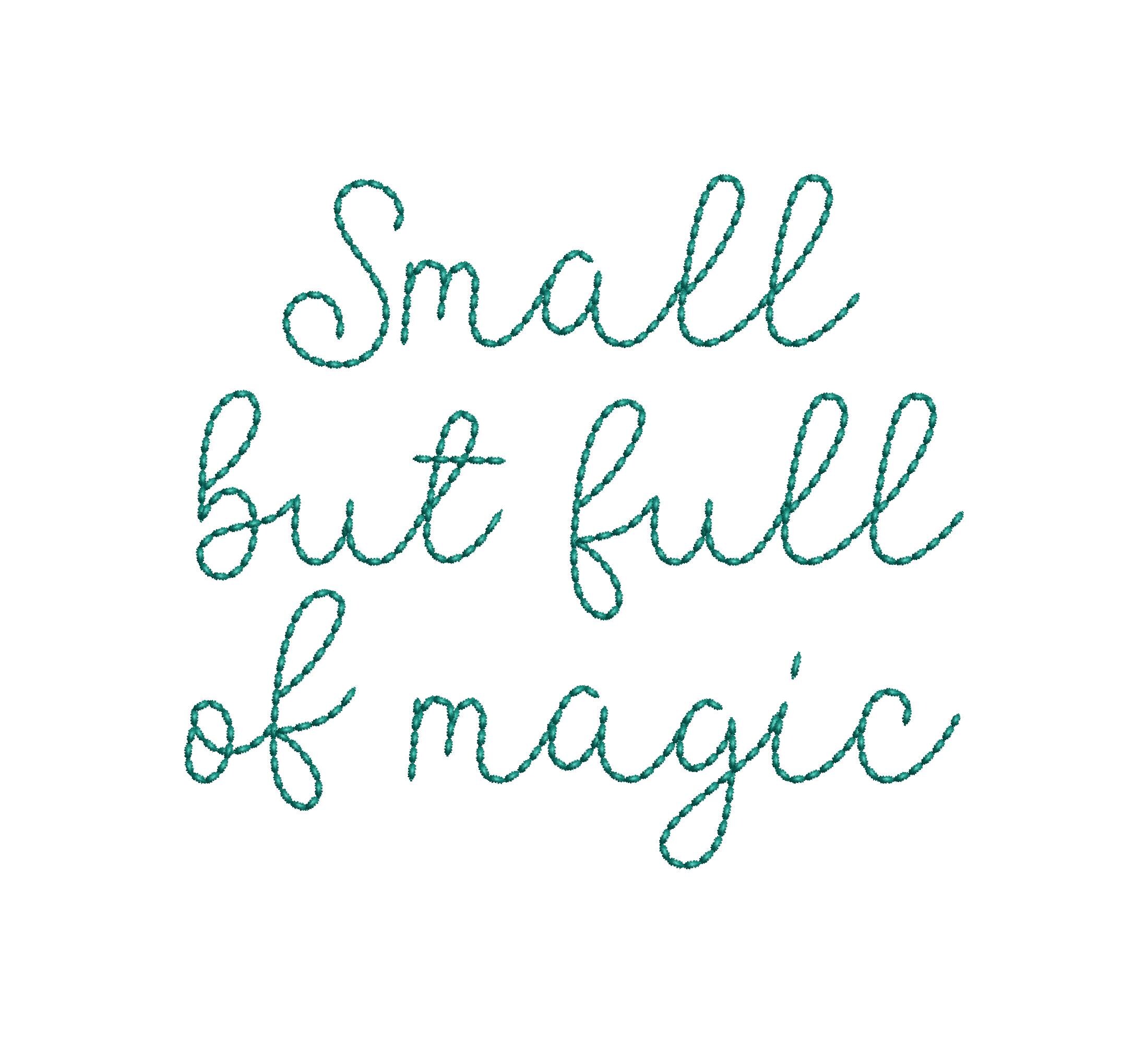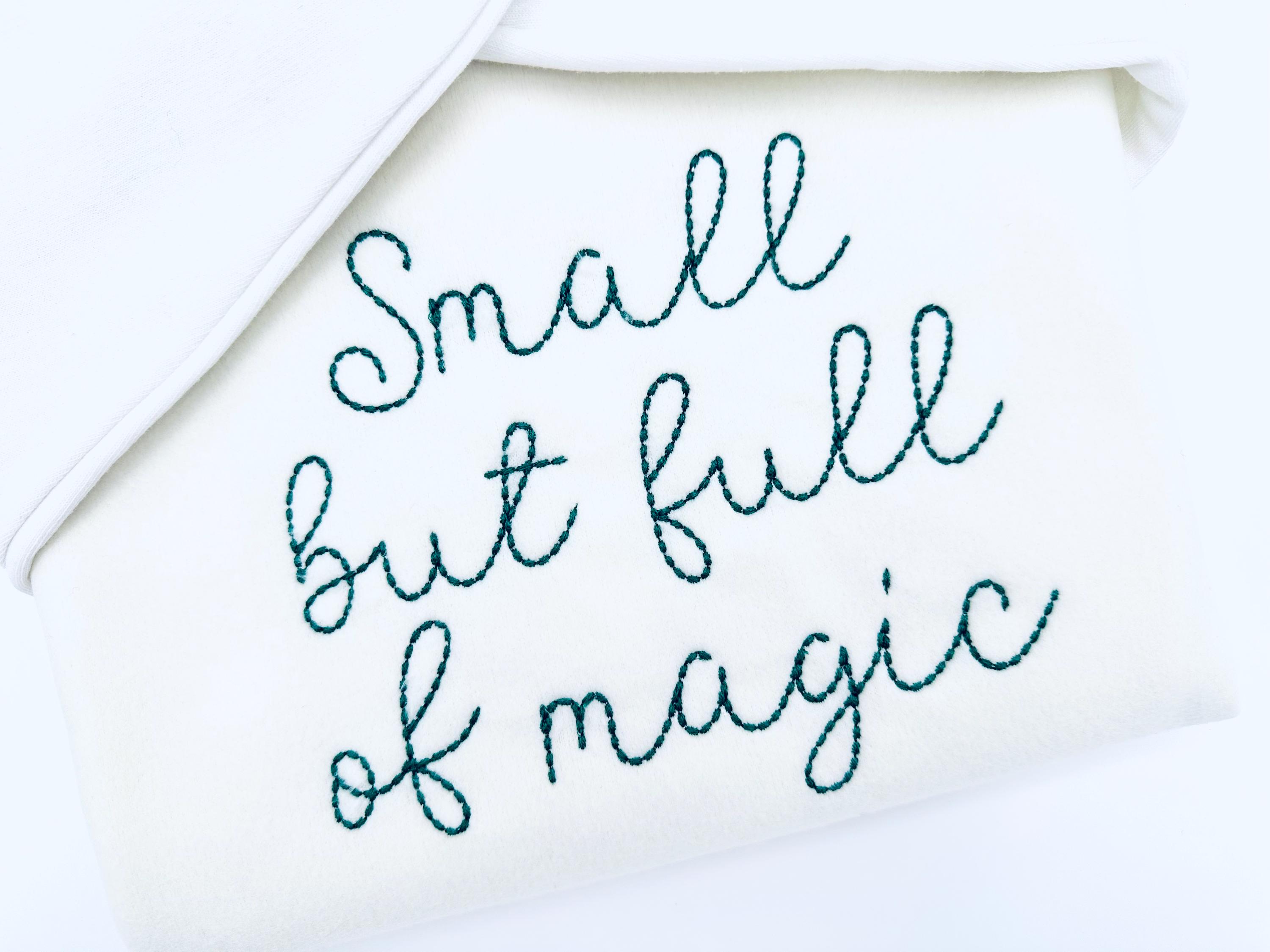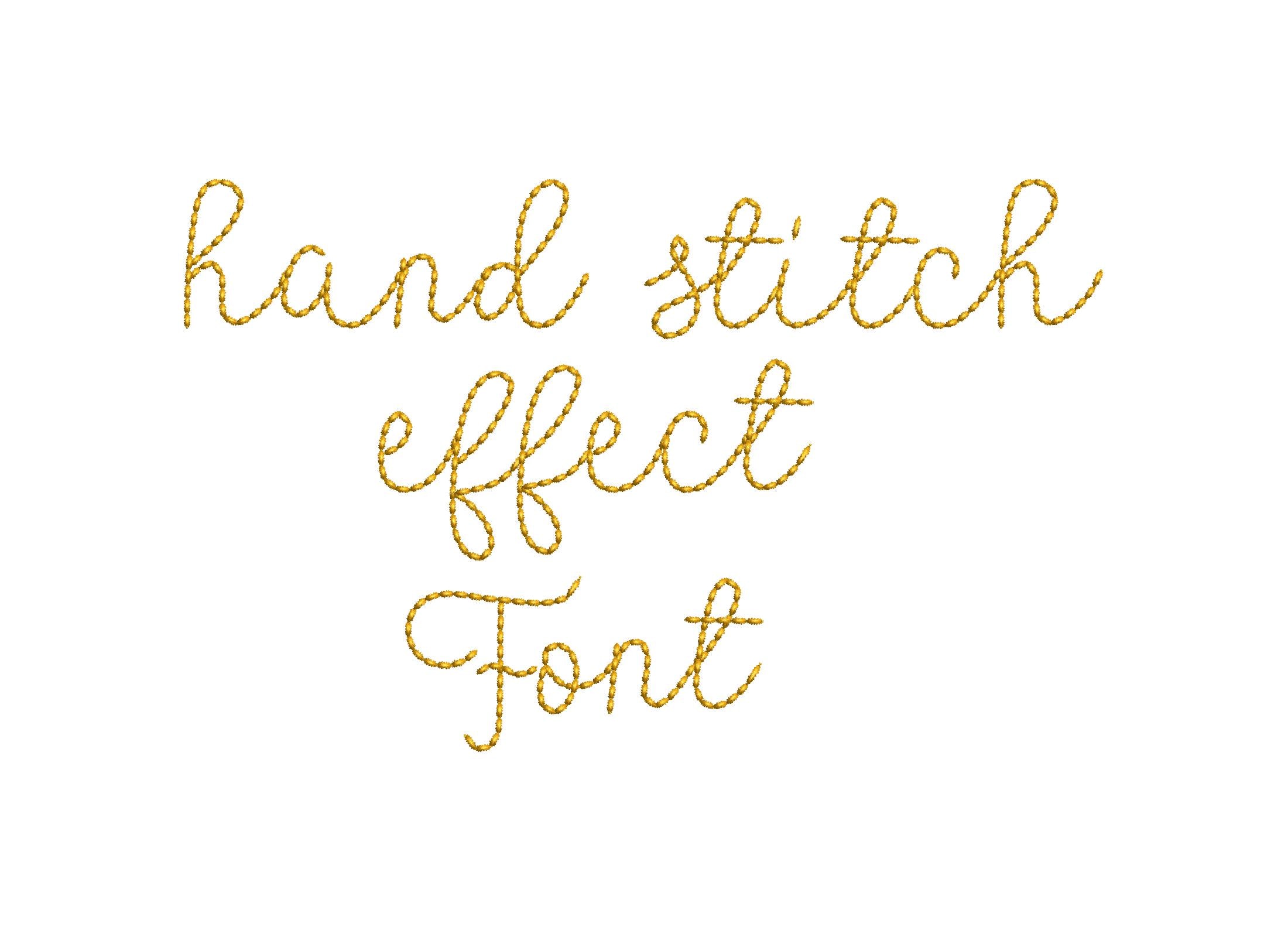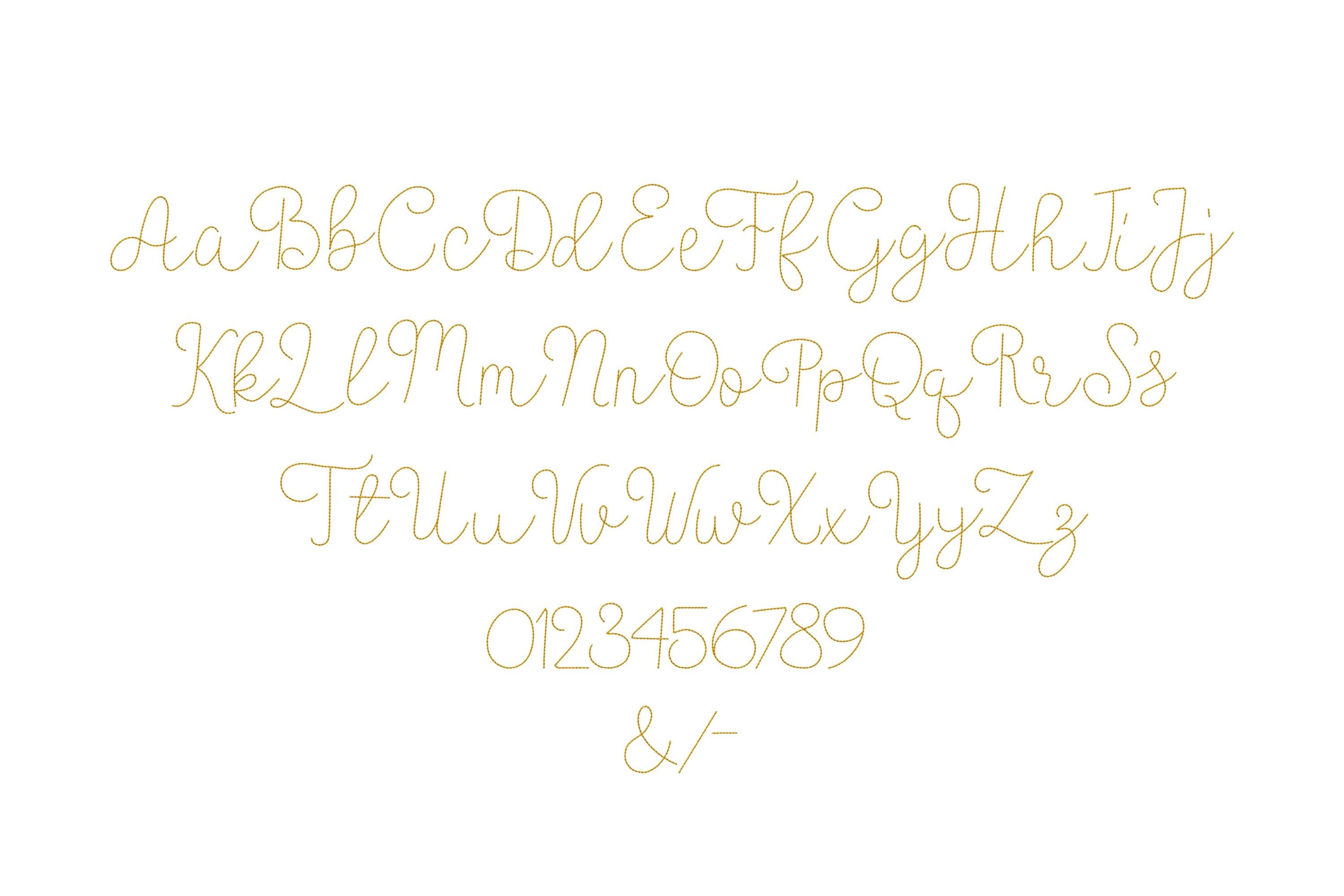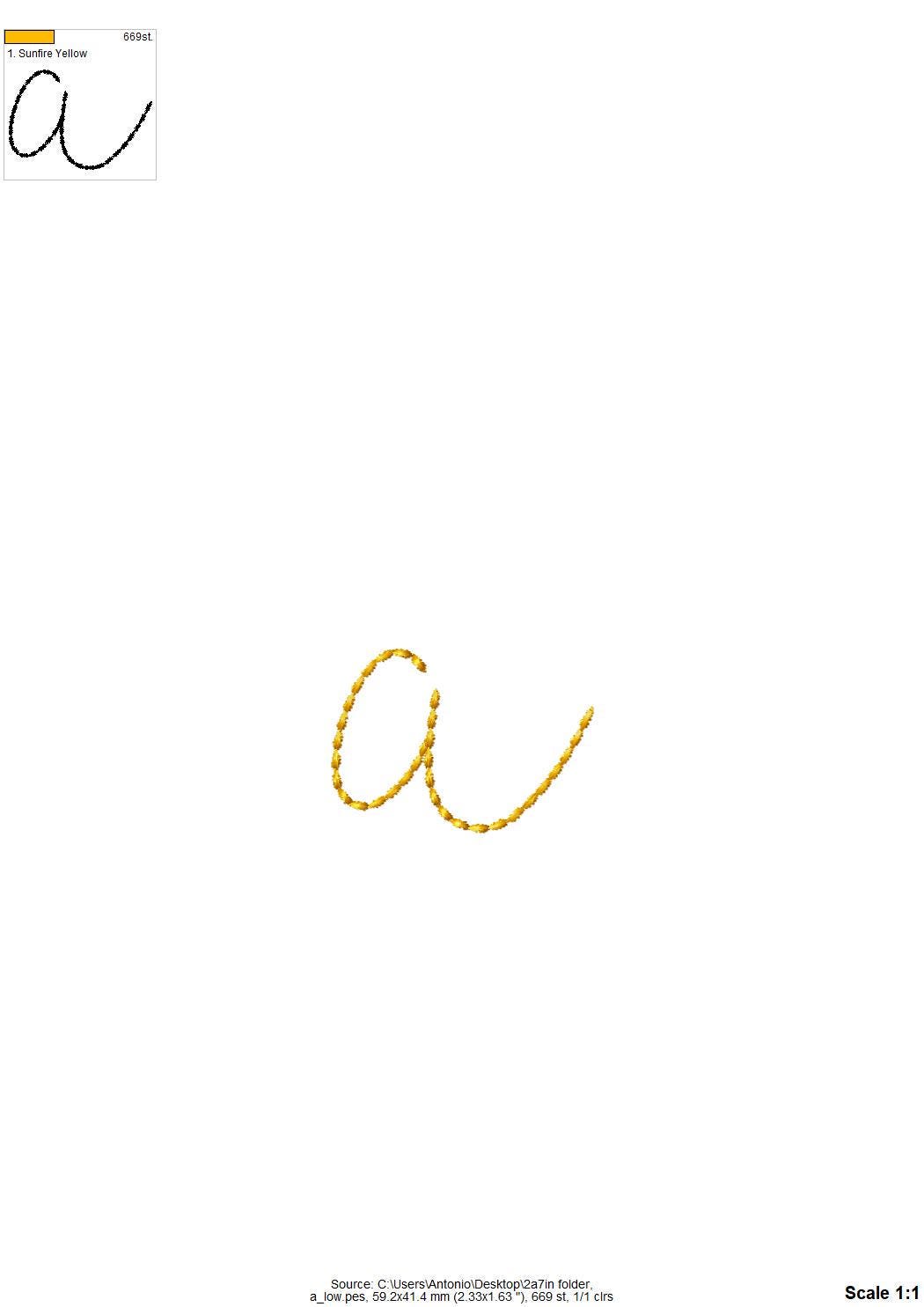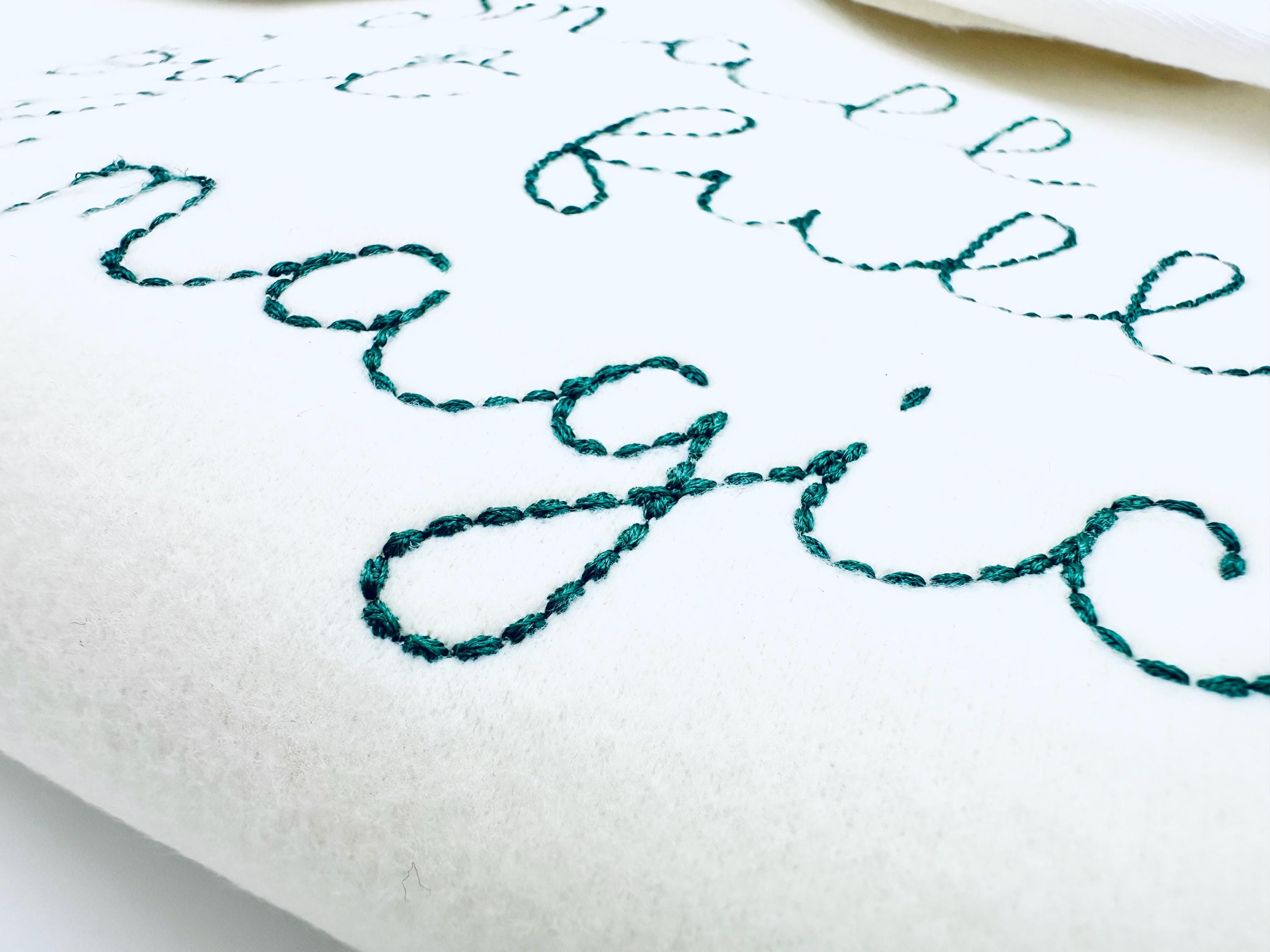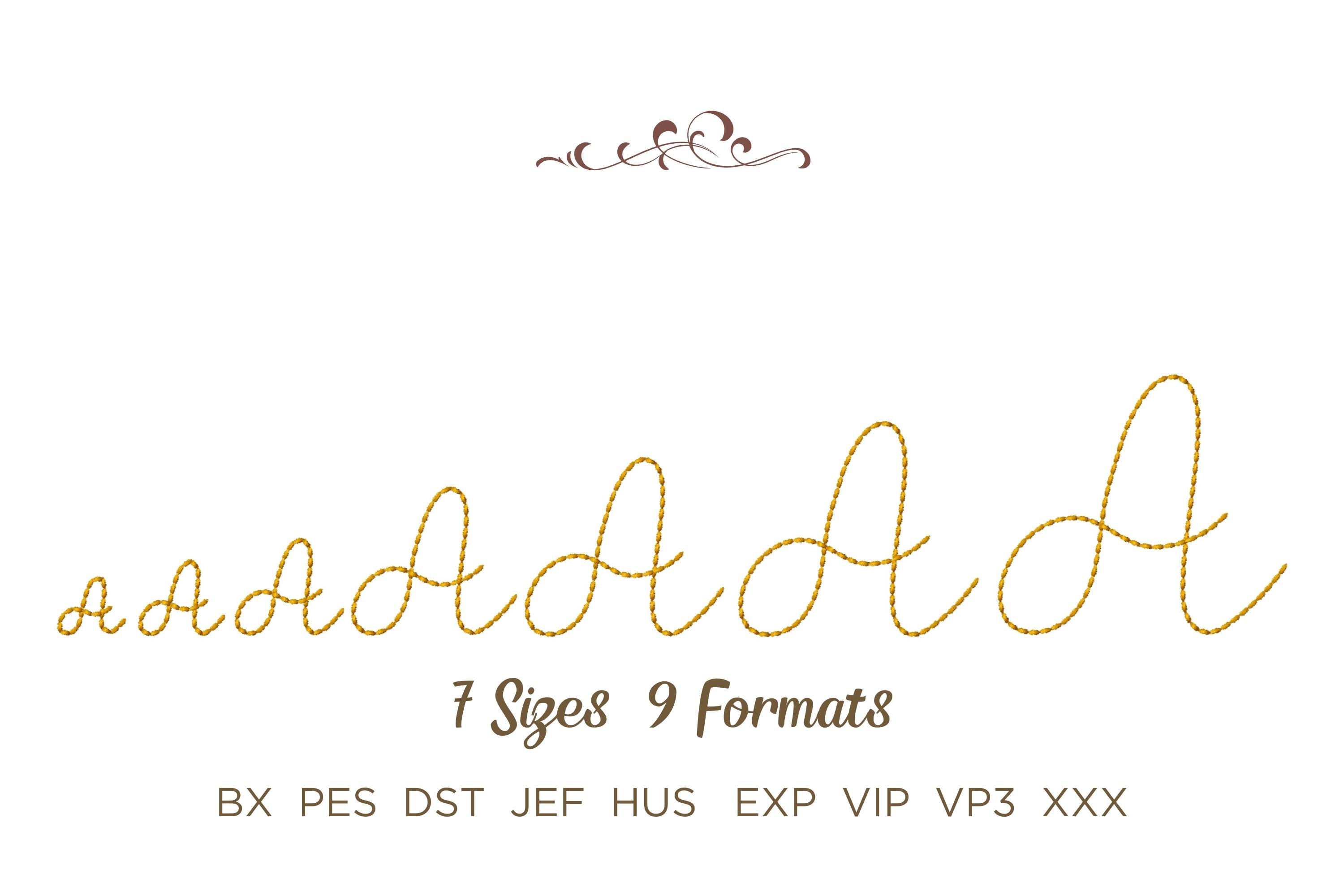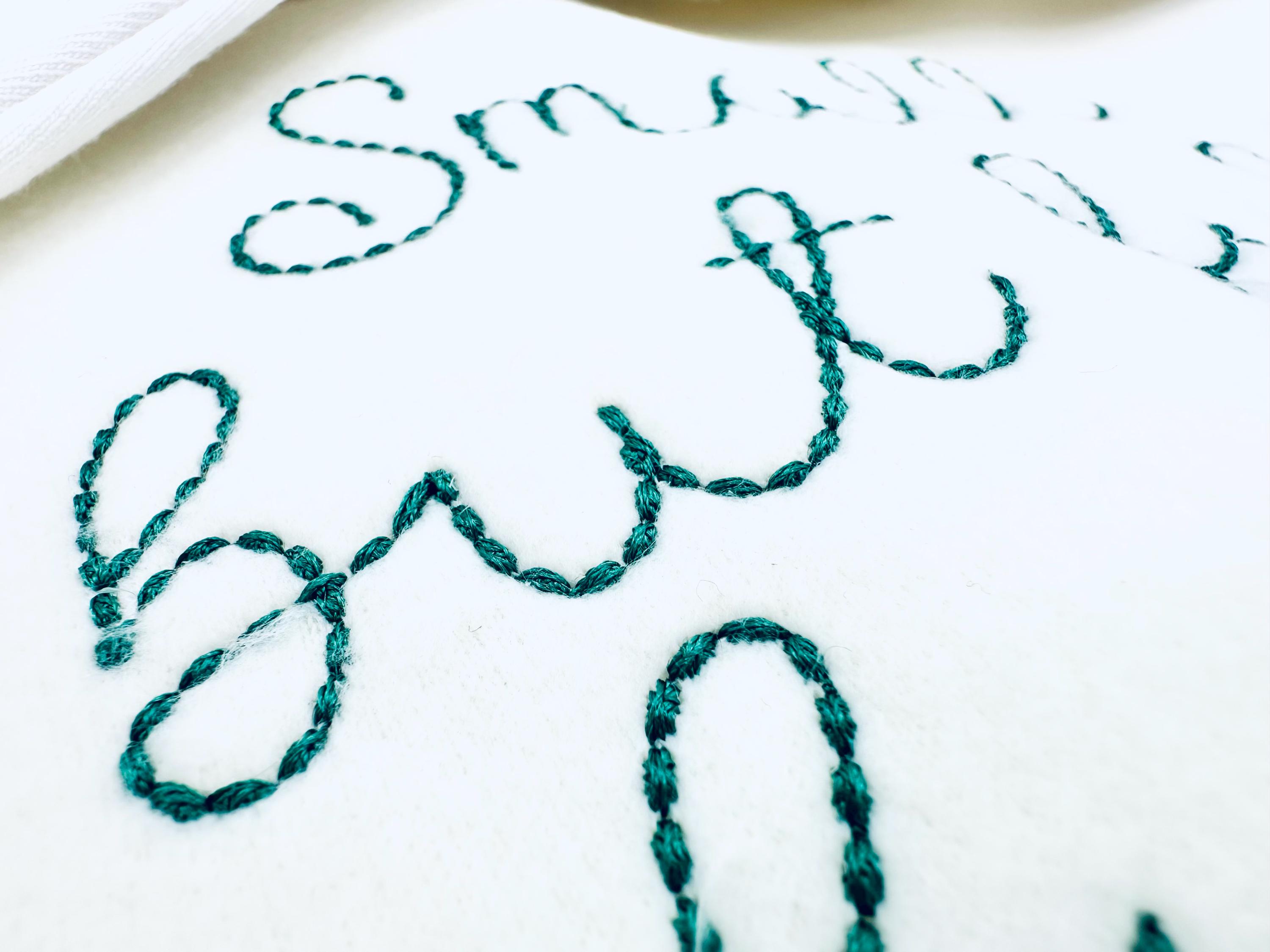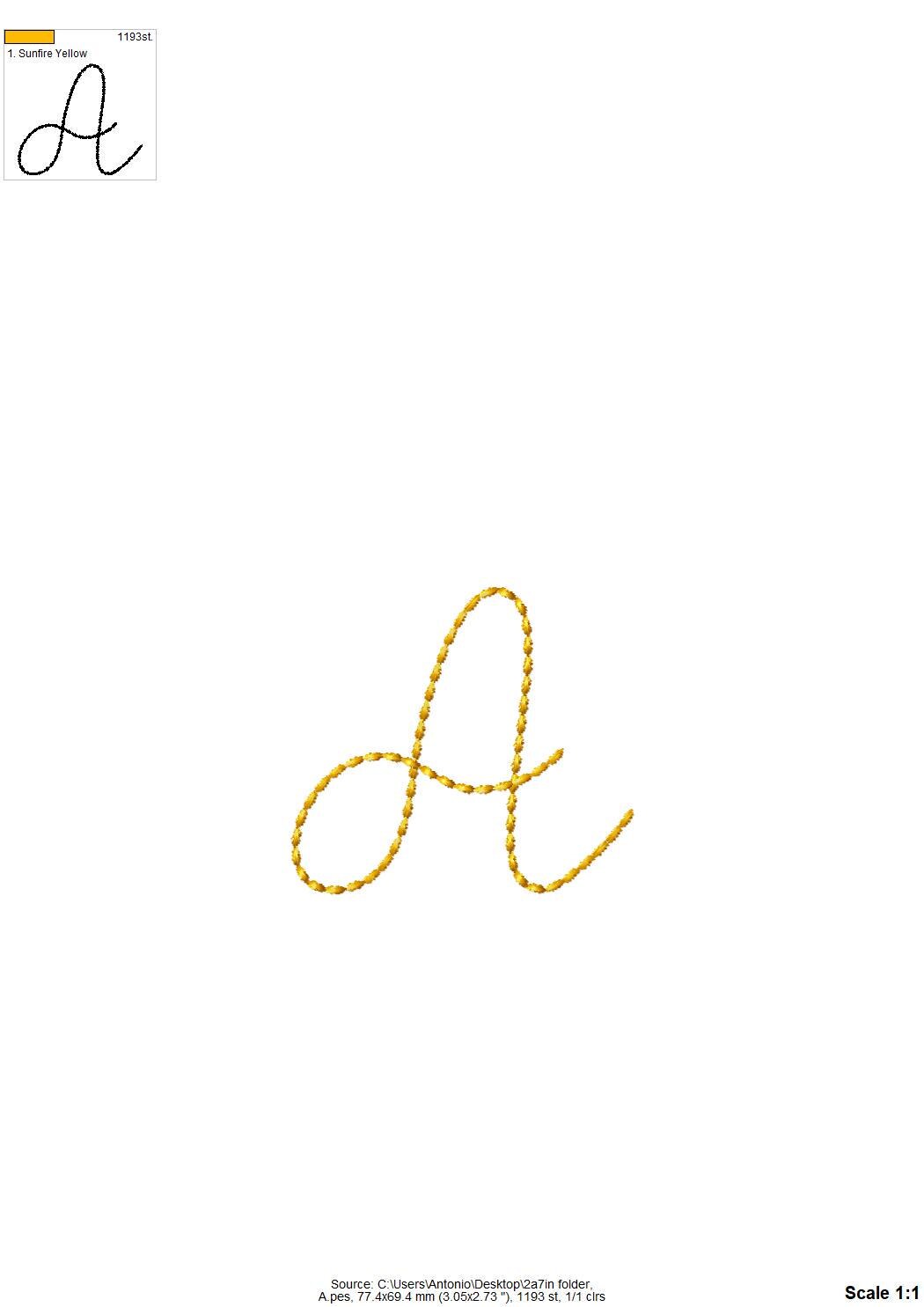
Hand stitch effect FONT Tala machine embroidery designs assorted sizes handwritten script font alphabet letters kids baby seed stitch, BX
Entire alphabet: uppercase and lowercase letters, numbers, and punctuation as shown in the images.